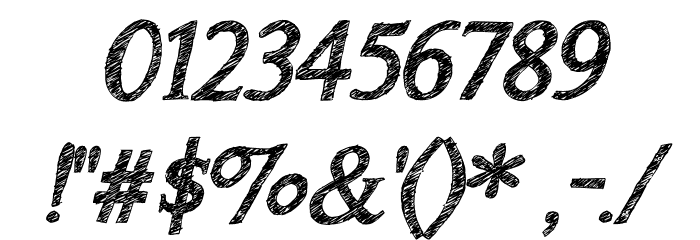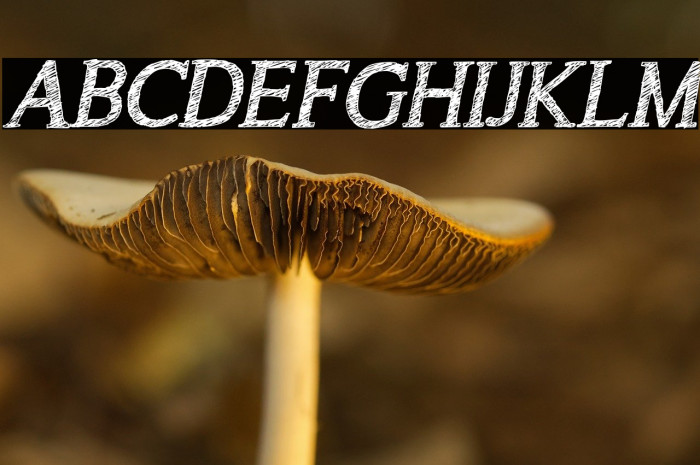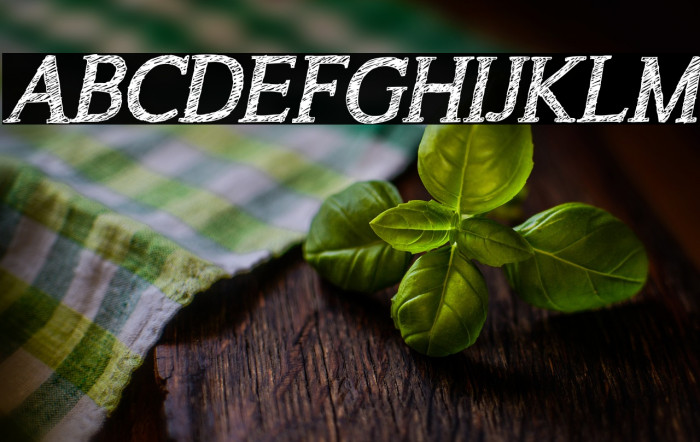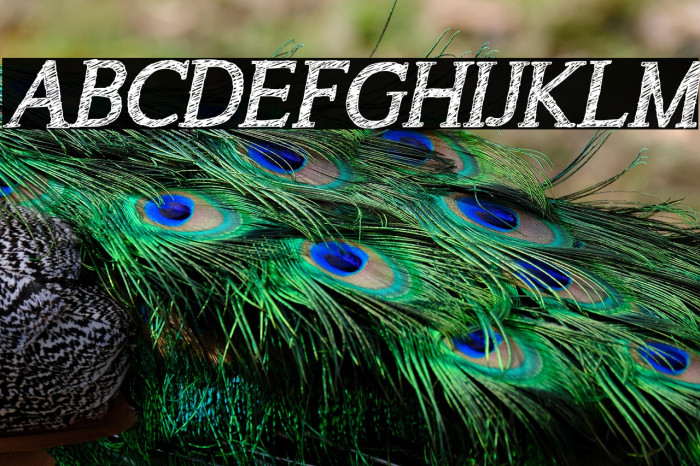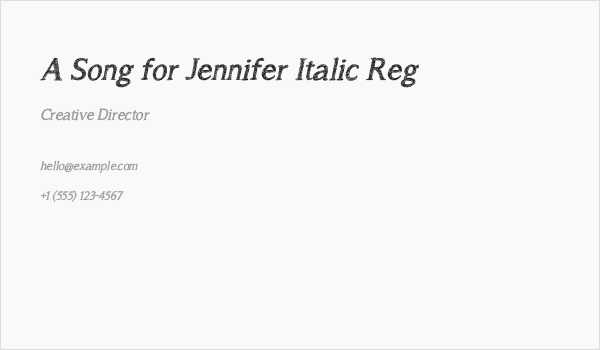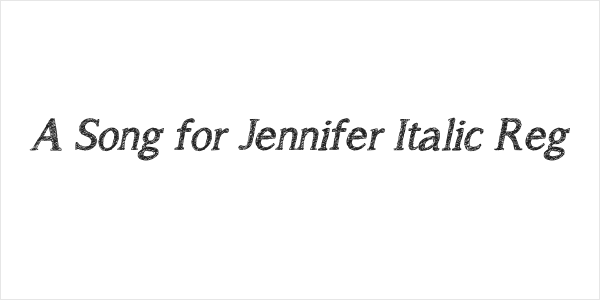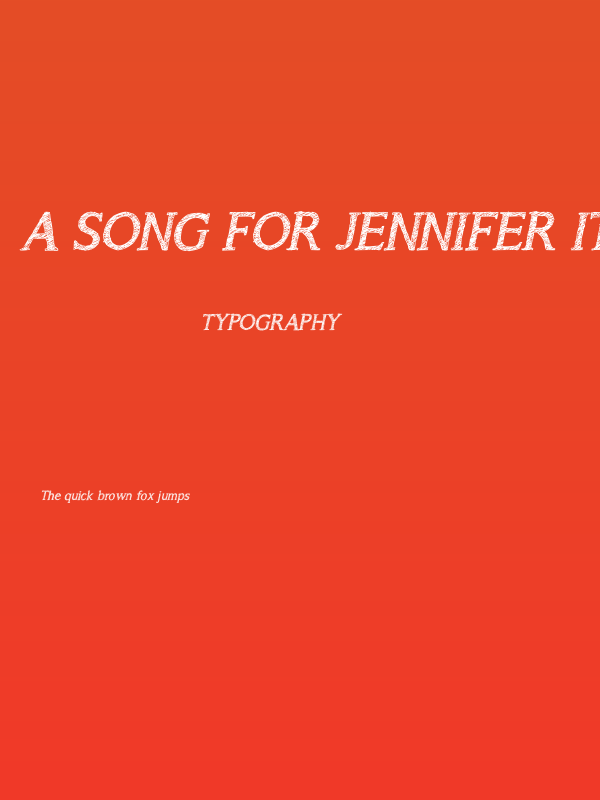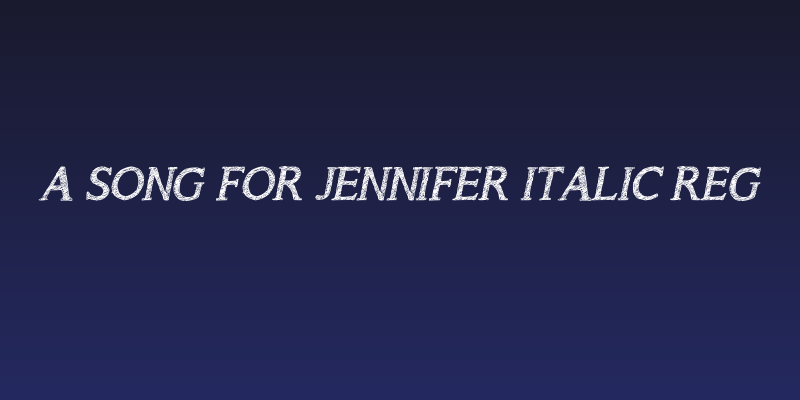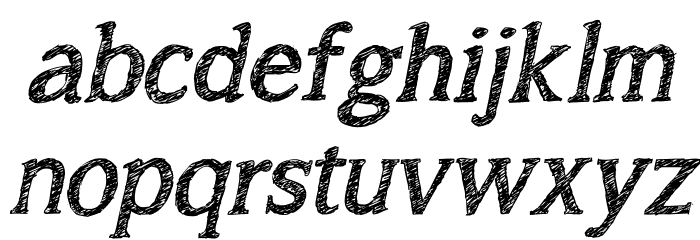
A Song for Jennifer Italic Reg Font
A Song for Jennifer Italic Reg Description
This font features a dynamic and textured appearance, characterized by its italicized and slightly slanted letterforms. The strokes are bold and exhibit a sketch-like quality, giving it a hand-drawn, artistic feel. The uppercase and lowercase letters maintain a consistent style, with a playful yet sophisticated flair. Numbers and special characters are equally expressive, making the font versatile for various design needs. The textured pattern within each character adds depth and visual interest, making it stand out in any composition.
| Overall Style | Artistic, Decorative |
| Use Case | Headlines, Logos, Artistic Designs |
| Proposed Projects | Ideal for creative projects such as posters, album covers, artistic branding, and unique invitations. |